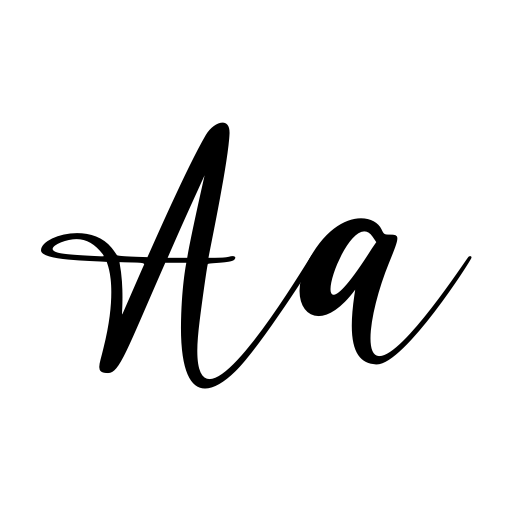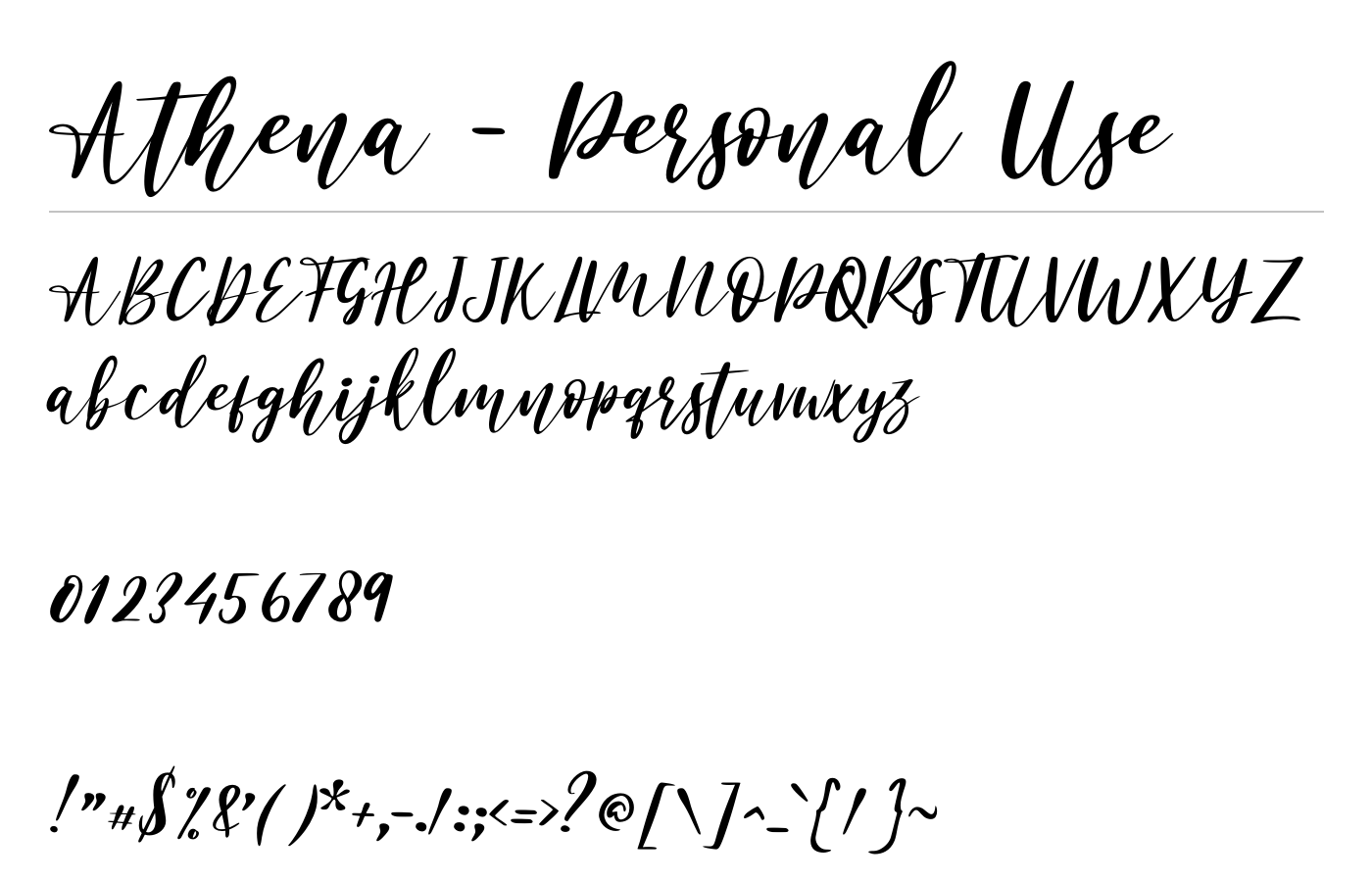
Athena is a stylish script font with elegant, flowing strokes and a medium weight that gives it a graceful yet readable appearance. Its handwritten character, featuring unique letterforms and smooth curves, makes it perfect for creative projects that need a personal, sophisticated touch. This font works especially well for invitations, branding, and social media designs where a blend of charm and refinement is desired.
Athena - Personal Use Font
About Athena - Personal Use Font